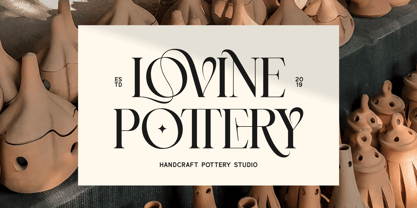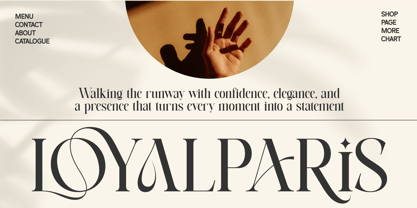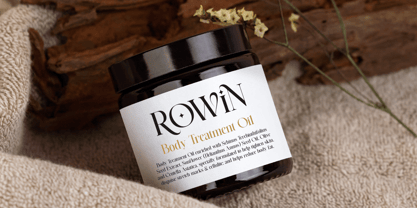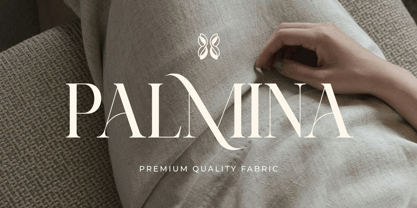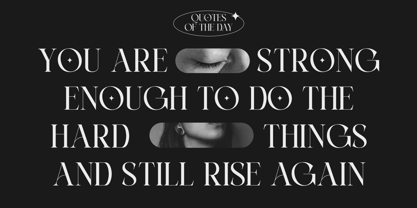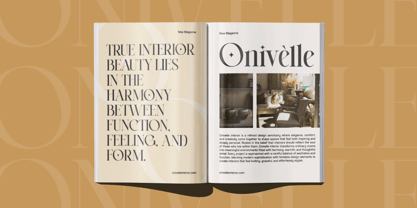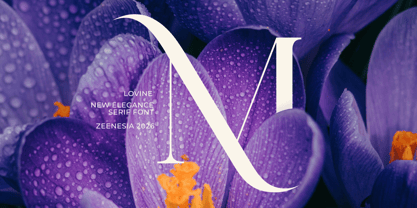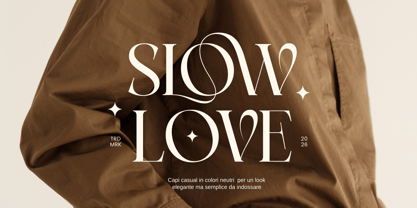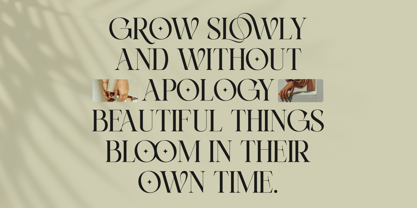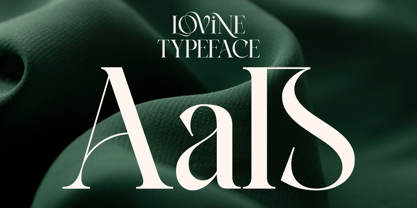
Lovine
by Zeenesia Studio
Lovine is a modern luxury serif typeface that embodies elegance, sophistication, and timeless beauty. Designed with graceful curves and striking high-contrast strokes, Lovine brings a perfect harmony between classic refinement and contemporary flair. Its distinctive letterforms feature flowing swashes and delicate details, making it ideal for high-end branding, fashion editorials, logos, wedding invitations, and premium packaging. The artistic ligatures and stylish alternates add a unique personality, allowing designers to create truly standout typography. Lovine is more than just a font—it’s a statement of style, romance, and luxury. Perfect for those who want to elevate their designs with a touch of graceful charm and modern elegance.